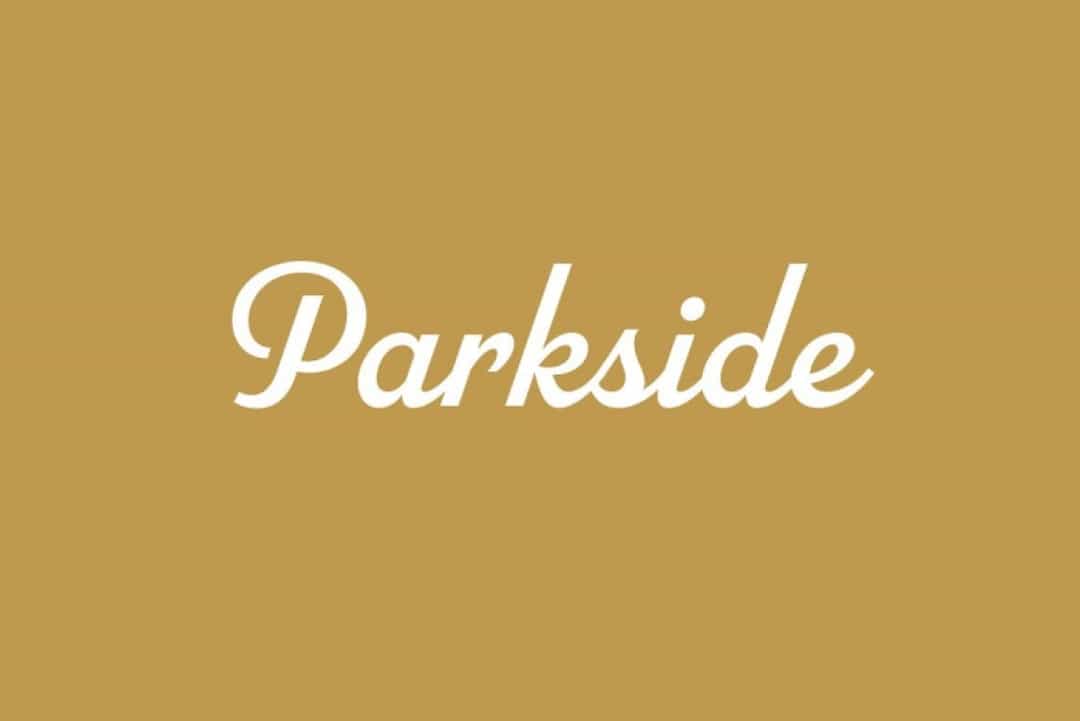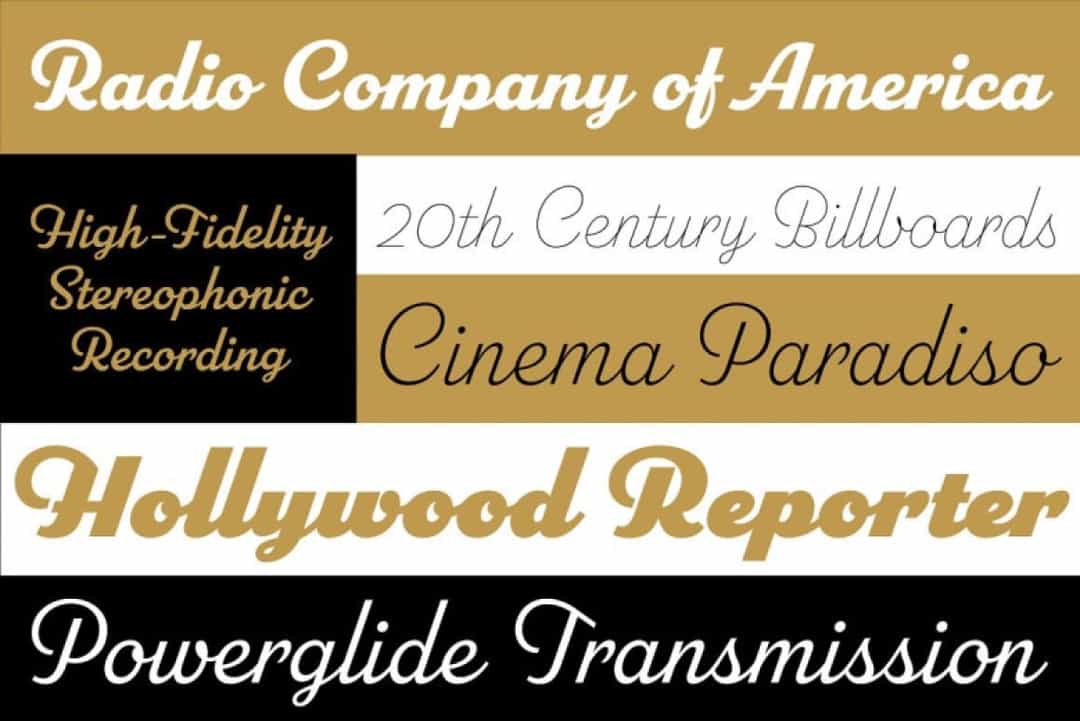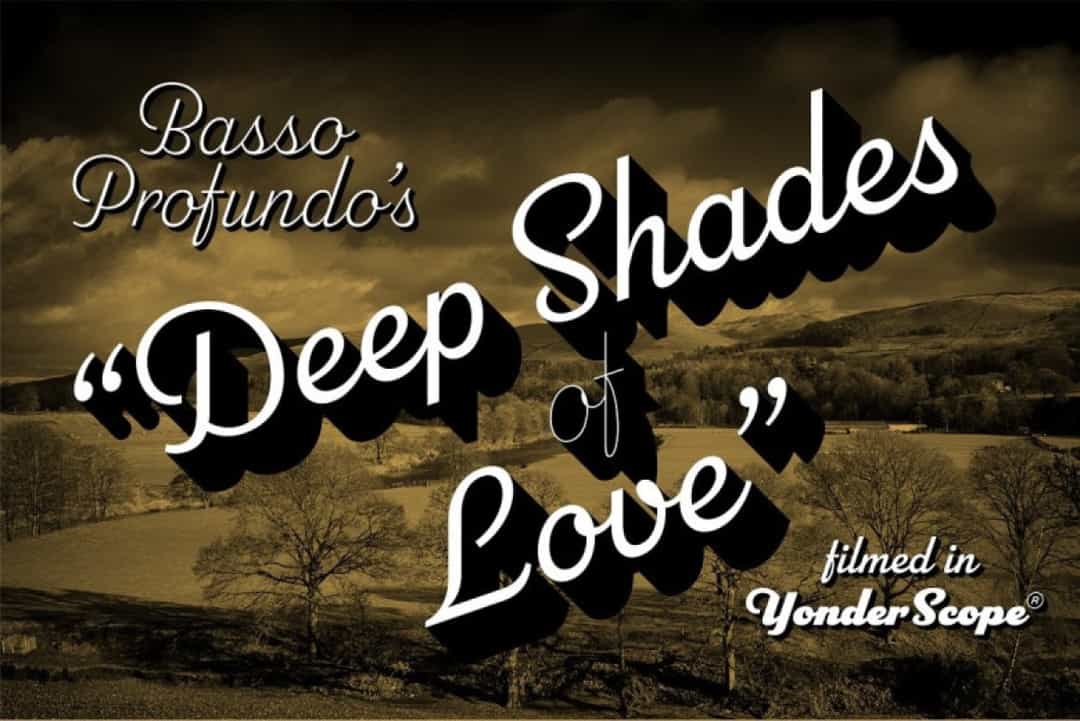
Parkside (2018) The Parkside font is an influence by lettering styles popular during the 30s and 40s, in particular metal typefaces used during that era. Instead of copying those metal typefaces precisely however, this font takes advantage of modern typography technology which allows letters to overlap while simultaneously changing form to blend more seamlessly with adjacent letters.